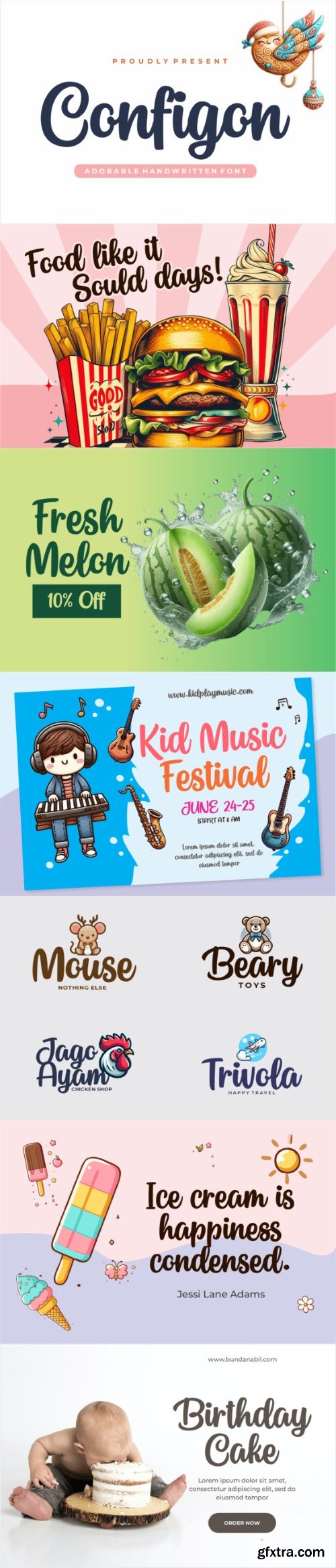
Configon is a handwritten brush typeface made with love, resulting in a font that looks cute, fresh, and adorable. Configon is perfect for branding projects, logos, wedding designs, social media posts, advertisements, product packaging, product designs, labels, photography, watermarks, invitations, stationery, and more!